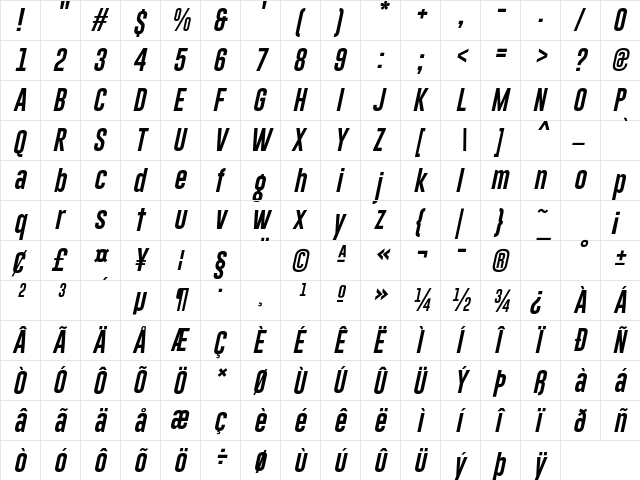
Gobold Lowplus Italic
| Designer | Situjuh Nazara |
Design Context for Gobold Lowplus Typeface
Gobold Lowplus takes a measured approach to typography — its balanced proportions and neutral character make it a reliable workhorse for both digital and print work. The dynamic lean of this cut emphasises speed and emphasis in any layout. Its bold stroke weight gives it real presence on the page.
Pro Tip: Use Gobold Lowplus for emphasis, pull quotes, and subheadings where its slanted energy can add rhythm to the layout.